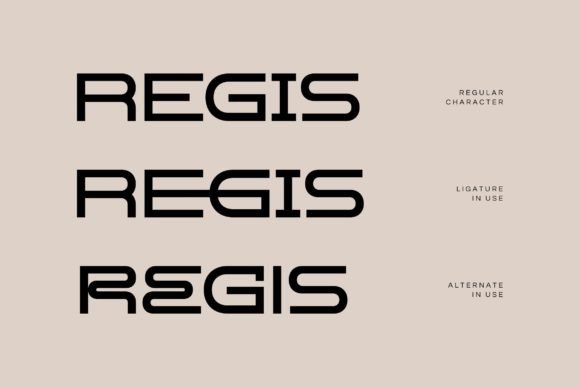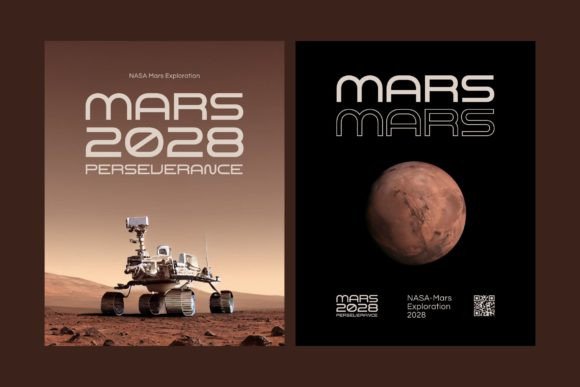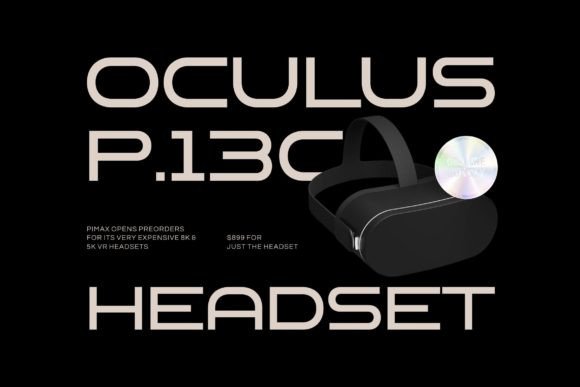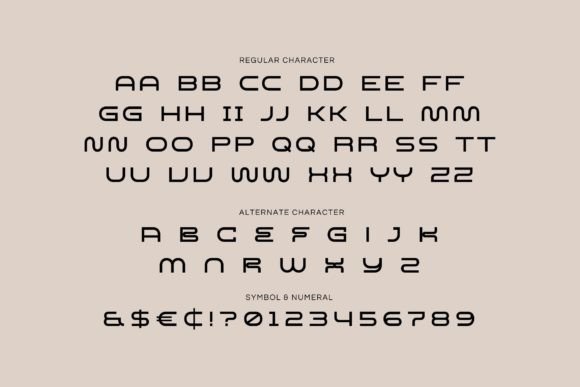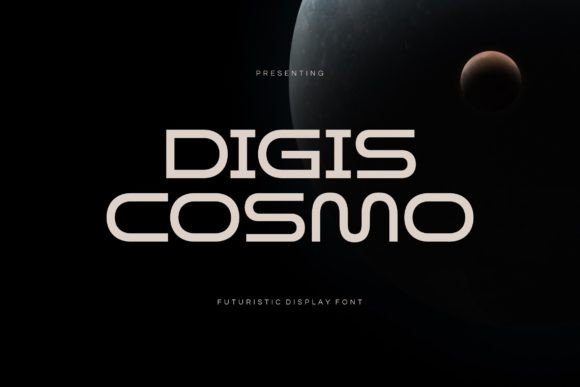
Introducing Digis Cosmo Font: A Futuristic Display Font for Modern Designs
In the realm of typography, fonts play a crucial role in shaping the visual identity of a design. For designers and crafters seeking a modern and fresh look, Digis Cosmo Font is an excellent choice. Inspired by science fiction movies and books, this futuristic display font is perfect for creating stunning visuals that capture the essence of the cosmos.
What is Digis Cosmo Font?
Digis Cosmo is a minimalist and modern font designed to evoke a sense of futurism and innovation. Its sleek lines and curves make it an ideal choice for various design purposes, including movie titles, posters, logos, labels, and more. The font’s contemporary look and feel are sure to elevate your designs and make them stand out in a crowded creative landscape.
Key Features of Digis Cosmo Font
- Futuristic Design: Digis Cosmo’s design is inspired by science fiction movies and books, giving it a unique and otherworldly feel.
- Minimalist and Modern: The font’s clean lines and curves make it perfect for designs that require a fresh and contemporary look.
- PUA Encoded: Digis Cosmo is PUA (Private Use Area) encoded, which means you can access all the glyphs and ligatures with ease, making it simple to use and customize.
- Versatile: This font is suitable for various design purposes, including movies, posters, logos, labels, and more.
Why Choose Digis Cosmo Font?
With so many fonts available, why choose Digis Cosmo? Here are a few compelling reasons:
- Unique Design: Digis Cosmo’s futuristic design sets it apart from other fonts, making it perfect for designers who want to create unique and eye-catching visuals.
- Ease of Use: The font’s PUA encoding makes it easy to access and use all the glyphs and ligatures, saving you time and effort.
- High-Quality: Digis Cosmo is a high-quality font designed to deliver crisp and clear results, even at large sizes.
How to Use Digis Cosmo Font
Using Digis Cosmo Font is straightforward. Here are a few tips to get you started:
- Pair it with Other Fonts: Combine Digis Cosmo with other fonts to create stunning contrast and visual interest.
- Experiment with Colors: Try out different colors and gradients to give your designs a unique and futuristic look.
- Play with Ligatures: Take advantage of Digis Cosmo’s ligatures to add an extra layer of creativity to your designs.
Design Ideas with Digis Cosmo Font
Digis Cosmo Font is versatile and can be used in a variety of design projects. Here are a few ideas to get you started:
- Movie Titles: Create stunning movie titles that evoke a sense of futurism and adventure.
- Posters: Design eye-catching posters for sci-fi movies, video games, or futuristic events.
- Logos: Use Digis Cosmo to create modern and sleek logos for tech companies, startups, or innovative products.
- Labels: Design futuristic labels for products, packaging, or branding materials.
Digis Cosmo Font is an excellent choice for designers and crafters seeking a modern and futuristic display font. Its unique design, ease of use, and versatility make it perfect for a wide range of design purposes. Whether you’re working on a movie title, poster, logo, or label, Digis Cosmo is sure to elevate your designs and give them a fresh, contemporary look.